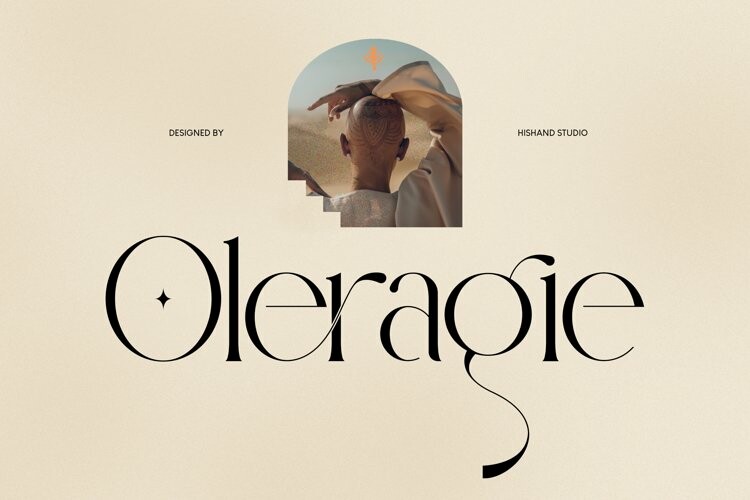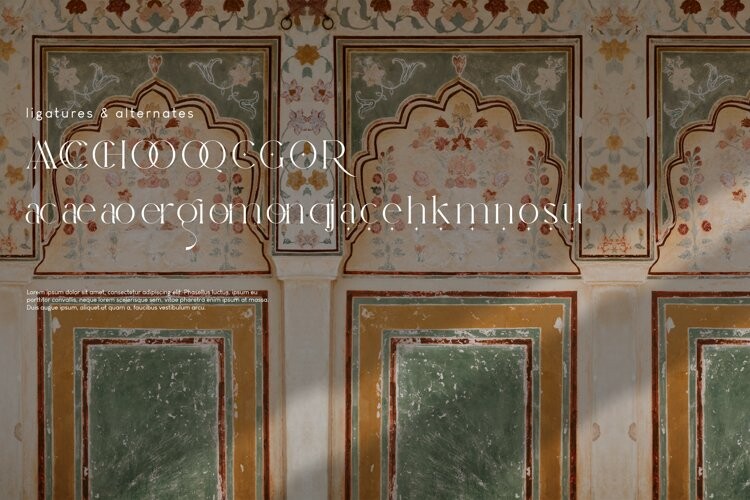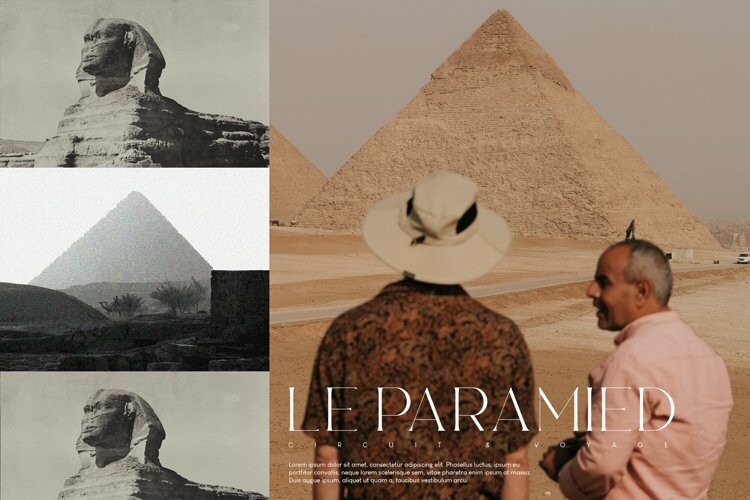
Oleragie Font
Oleragie FontIntroducing Oleragie, a classic modern serif with an aesthetic look inspired by the Egyptian and middle east atmosphere. Perfect for those who need a touch of elegance, stylish, classy, beautifully thin, and modernity for their design. Complete with